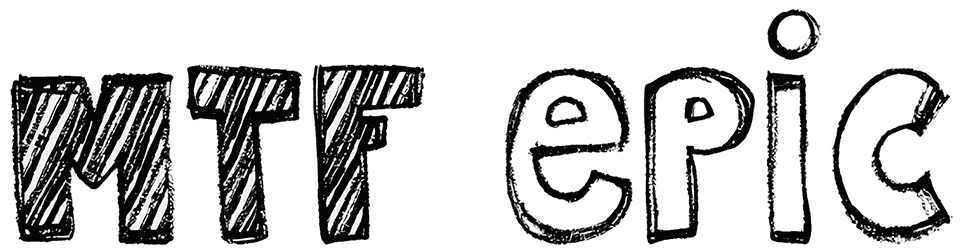
MTF Epic Font
We have just added a magical sketch font such as MTF Epic to our archive and widens your horizons in the middle of designing graphic content like illustrations, children’s book covers, stickers, product labels, or packag…
We have just added a magical sketch font such as MTF Epic to our archive and widens your horizons in the middle of designing graphic content like illustrations, children’s book covers, stickers, product labels, or packaging.
The lovely blend of uppercase and lowercase letters of this cross-hatched font can bring a feeling of playfulness, grunge, fierceness, or dynamism to your artwork. Considering its numerous advantages, the lack of numbers won’t be a problematic shortage.